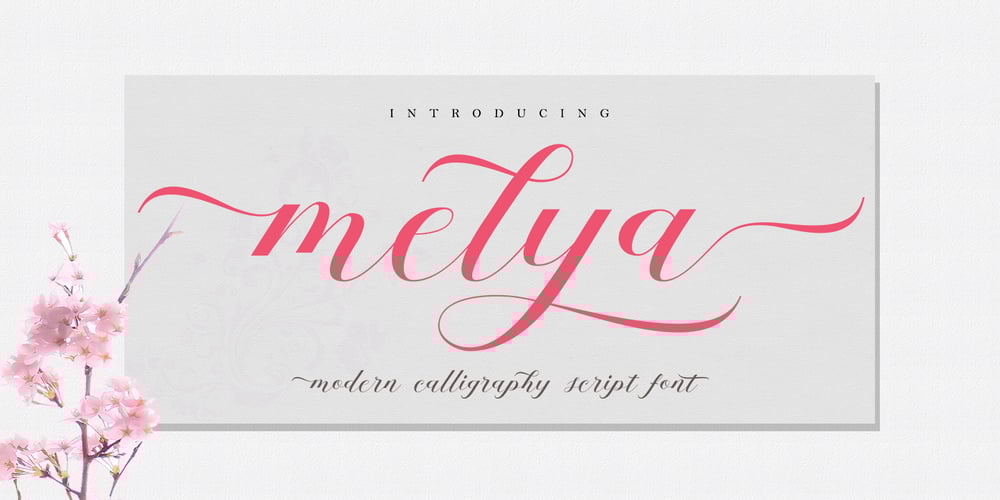
Melya Font Family was designed by Yur Lis and published by Stripes Studio. Melya contains 1 styles and family package options. Melya Script, a modern hand writing, I hope you are interested in this font. It can be used easily and simply because there are a lot of features in it and contains a complete set of letters in lower and uppercase, assorted punctuation, numbers, and multilingual support. It also contains several ligatures and alternate style stylistic characters. To enable the OpenType Stylistic alternates, you need a program that supports OpenType features such as Adobe Illustrator CS, Adobe Indesign & CorelDraw X6-X7, Microsoft Word 2010 or later versions. And there are additional ways to access alternates/swashes, using Character Map (Windows), Nexus Font (Windows), Font Book (Mac) or a software program such as PopChar (for Windows and Mac). How to access all alternative characters using Adobe Illustrator: https://www.youtube.com/watch?v=XzwjMkbB-wQ How to access all alternative characters, using Windows Character Map with Photoshop: https://www.youtube.com/watch?v=Go9vacoYmBw Melya Script has given PUA unicode. Thank you for your purchase!